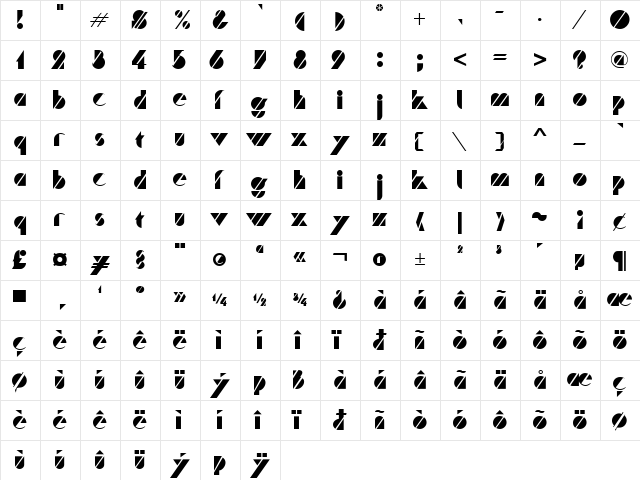
Complete BarFlyer Regular glyph index. Displaying only characters natively supported by BarFlyer Regular font.
BarFlyer is a composed and adaptable typeface that performs quietly and consistently across a wide range of design contexts.